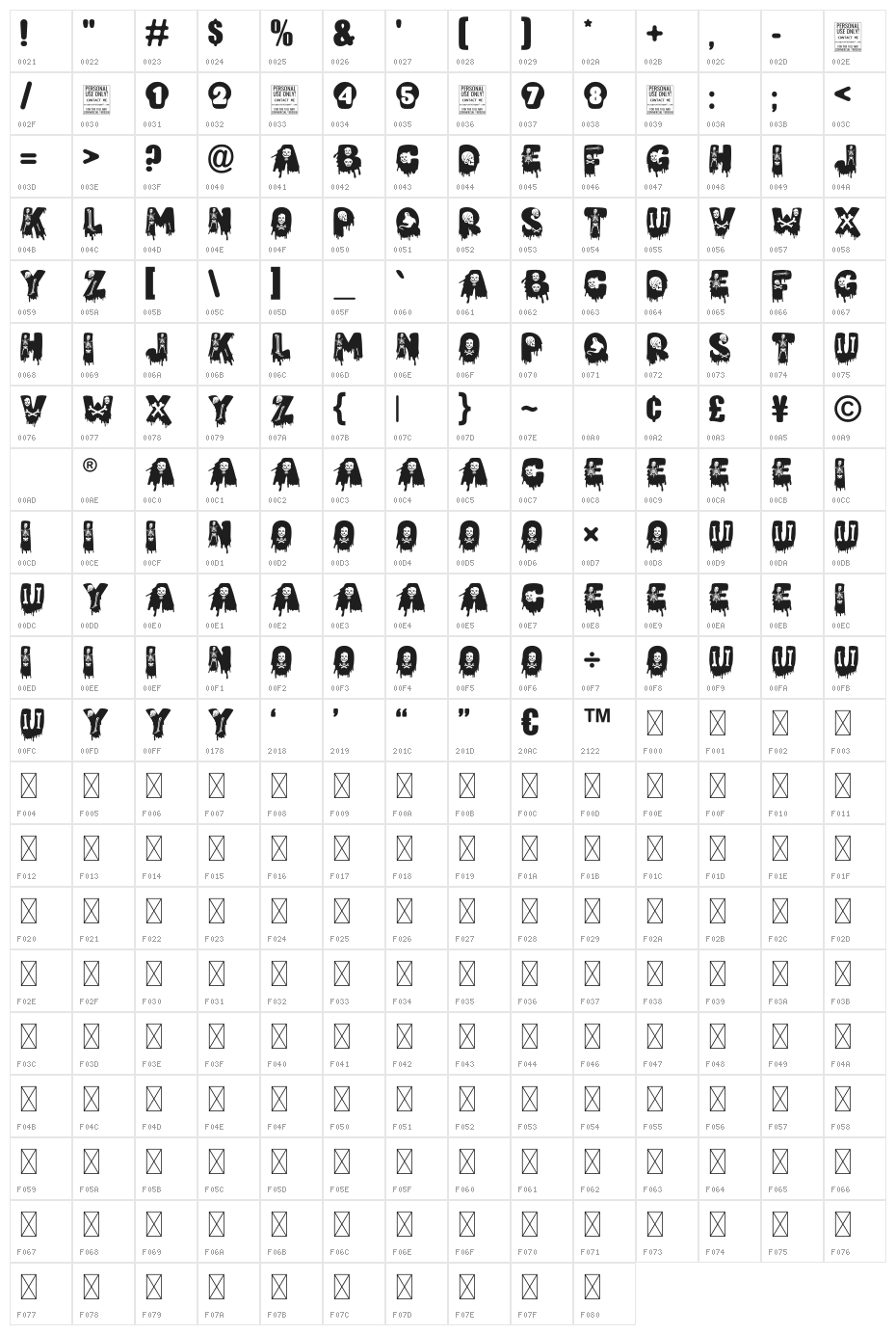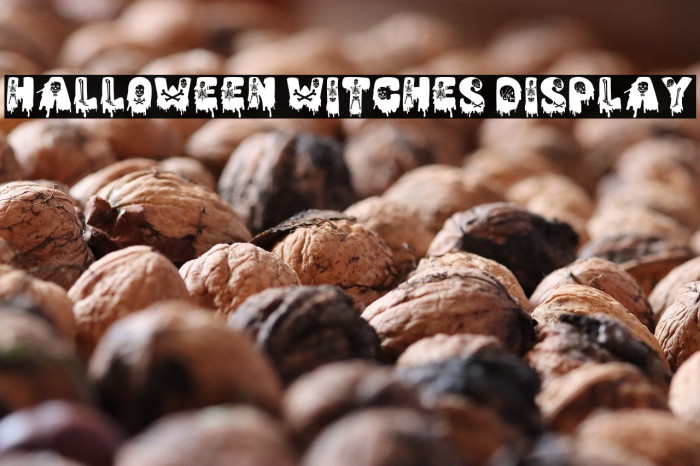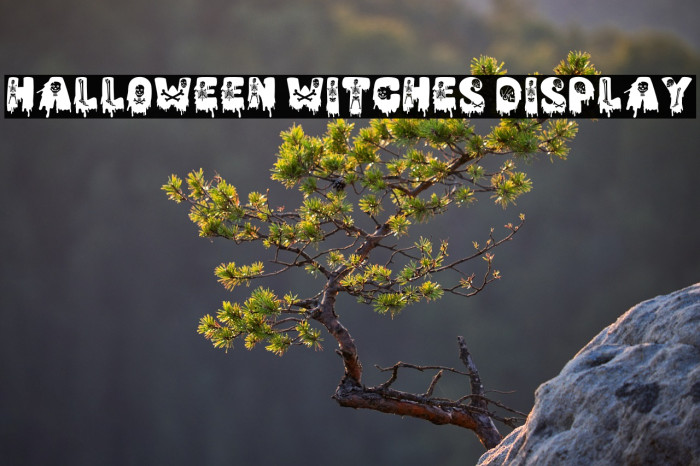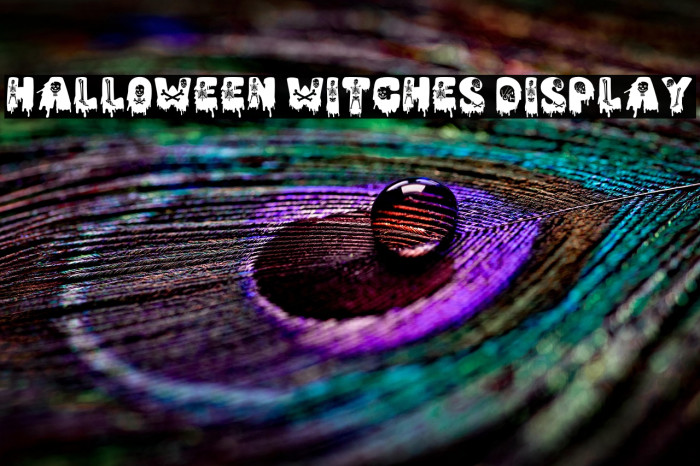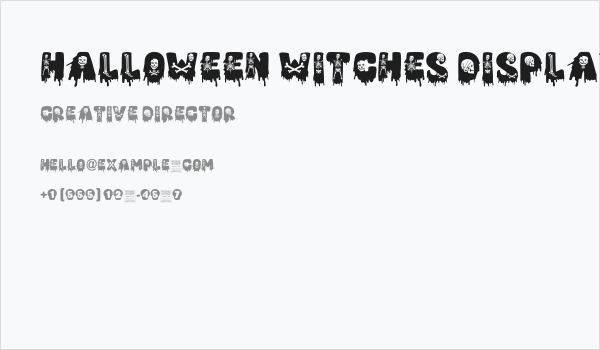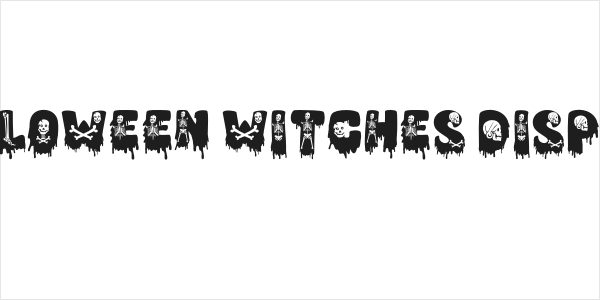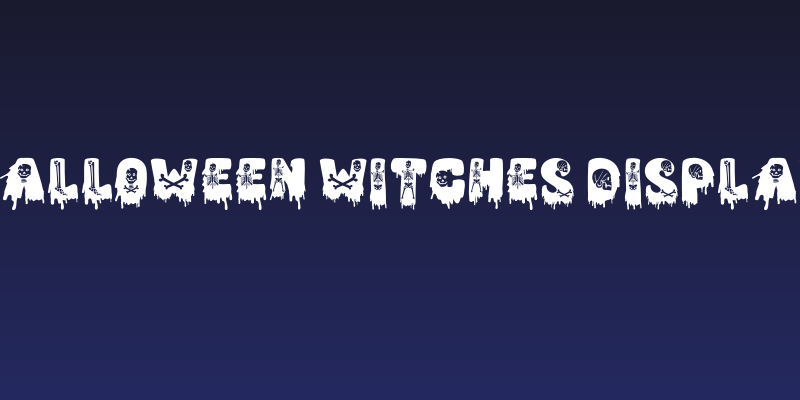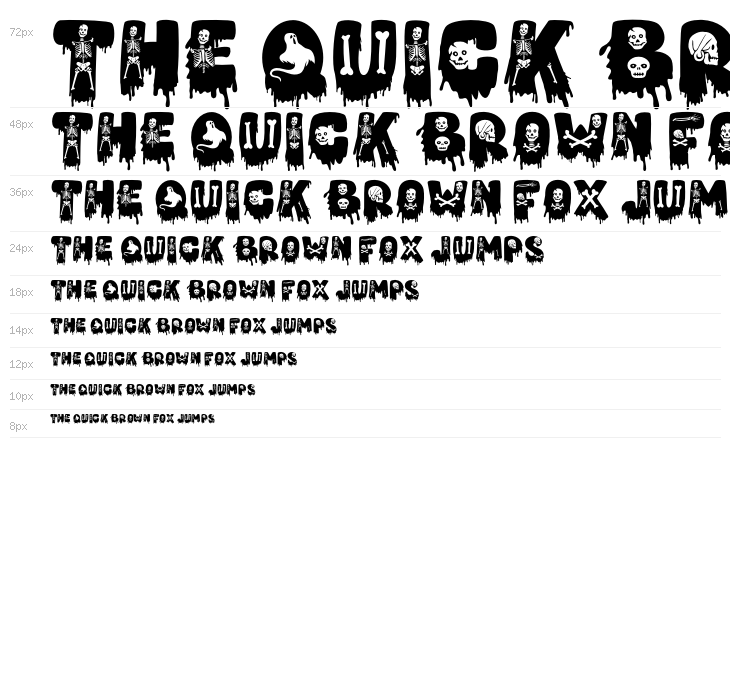
Halloween Witches Display Font
Halloween Witches Display Description
This font features a spooky and playful design, perfect for Halloween-themed projects. Each character is adorned with unique Halloween elements such as witches, skulls, and ghosts, giving it a distinct and eerie appearance. The letters have a dripping effect, reminiscent of melting wax or goo, enhancing the creepy aesthetic. The bold and chunky style ensures high visibility, making it ideal for attention-grabbing headlines or posters. The font's decorative nature is balanced with a consistent design across all characters, maintaining readability while adding a fun, thematic twist.
| Use Case | Headlines, Posters, Themed Events |
| Proposed Projects | Ideal for Halloween party invitations, themed posters, haunted house flyers, and spooky social media graphics. |